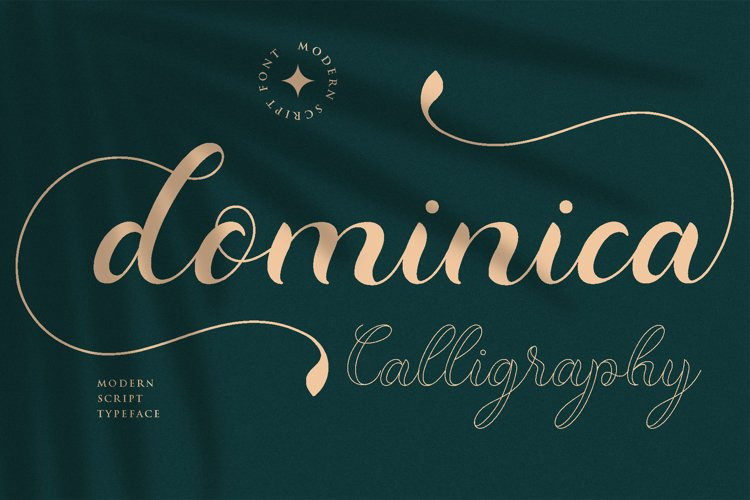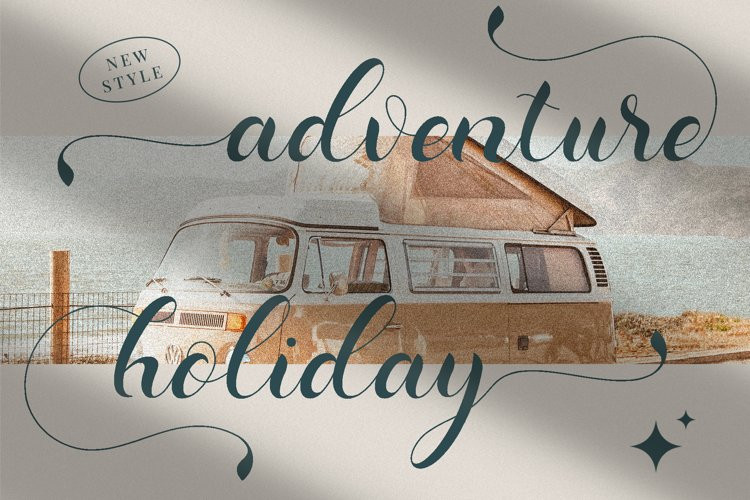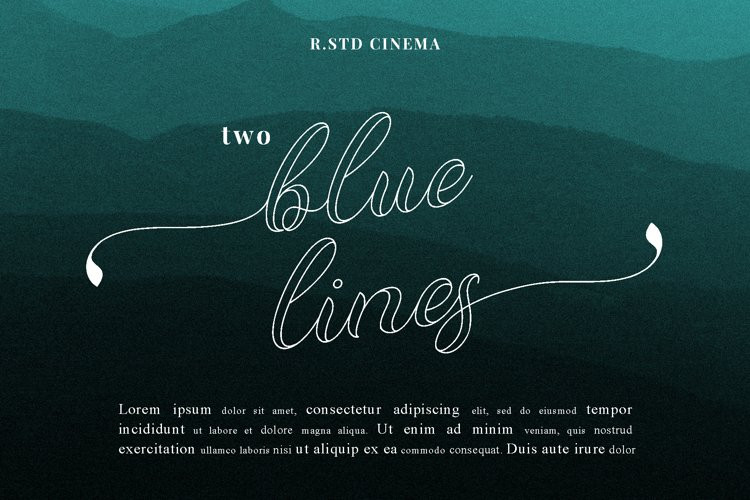
Dominica Font
Dominica FontIntroducing Dominica Calligraphy is a balanced, subtle, elegant and stylish handwritten font. It has beautiful character. This font comes with a matching Outline/Monoline version. Perfectly match the design of invitation cards, company logos, movie titles, movie names, wedding invitation cards, business cards, book titles, brand names and various other designs.